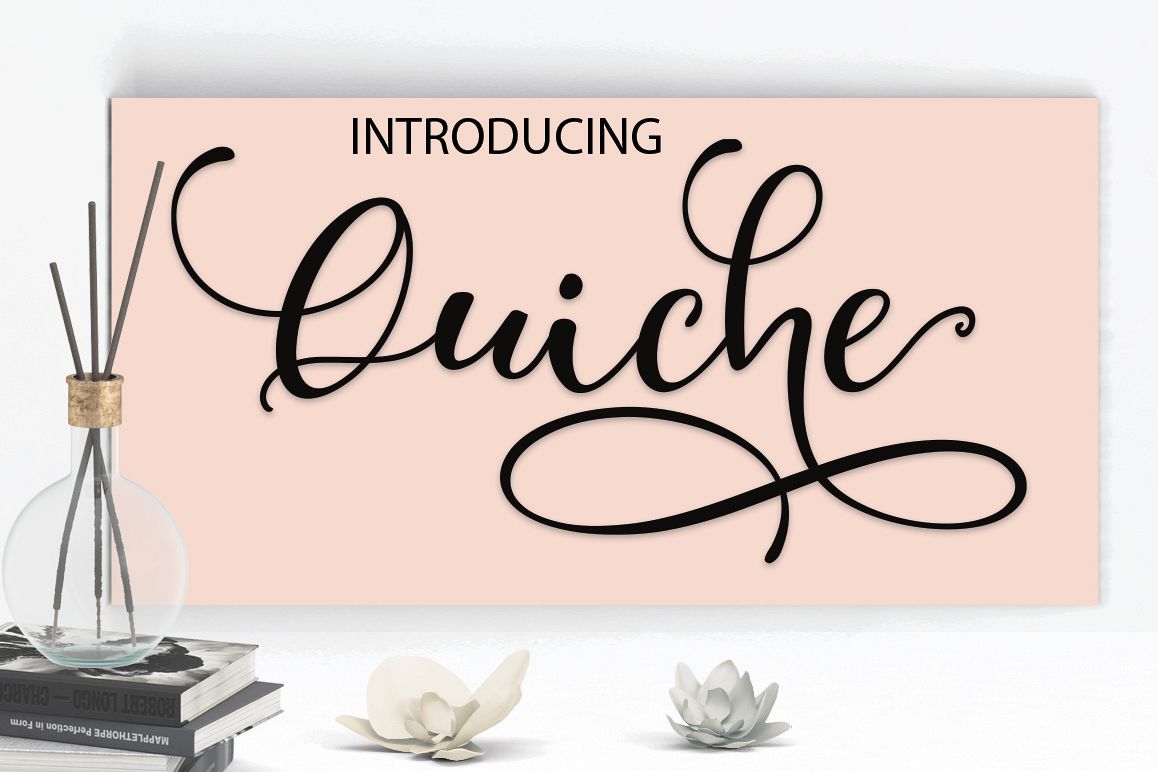
Quiche
Quiche-Regular
Quiche script come with 331+ glyphs. The alternative characters were divided into several Open Type features such as Swash, Stylistic Sets.The Open Type features can be accessed by using Open Type savvy programs such as Adobe Illustrator, Adobe InDesign, Adobe Photoshop Corel Draw X version, And Microsoft Word. And this Font has given PUA unicode (specially coded fonts). so that all the alternate characters  can easily be accessed in full by a craftsman or designer.